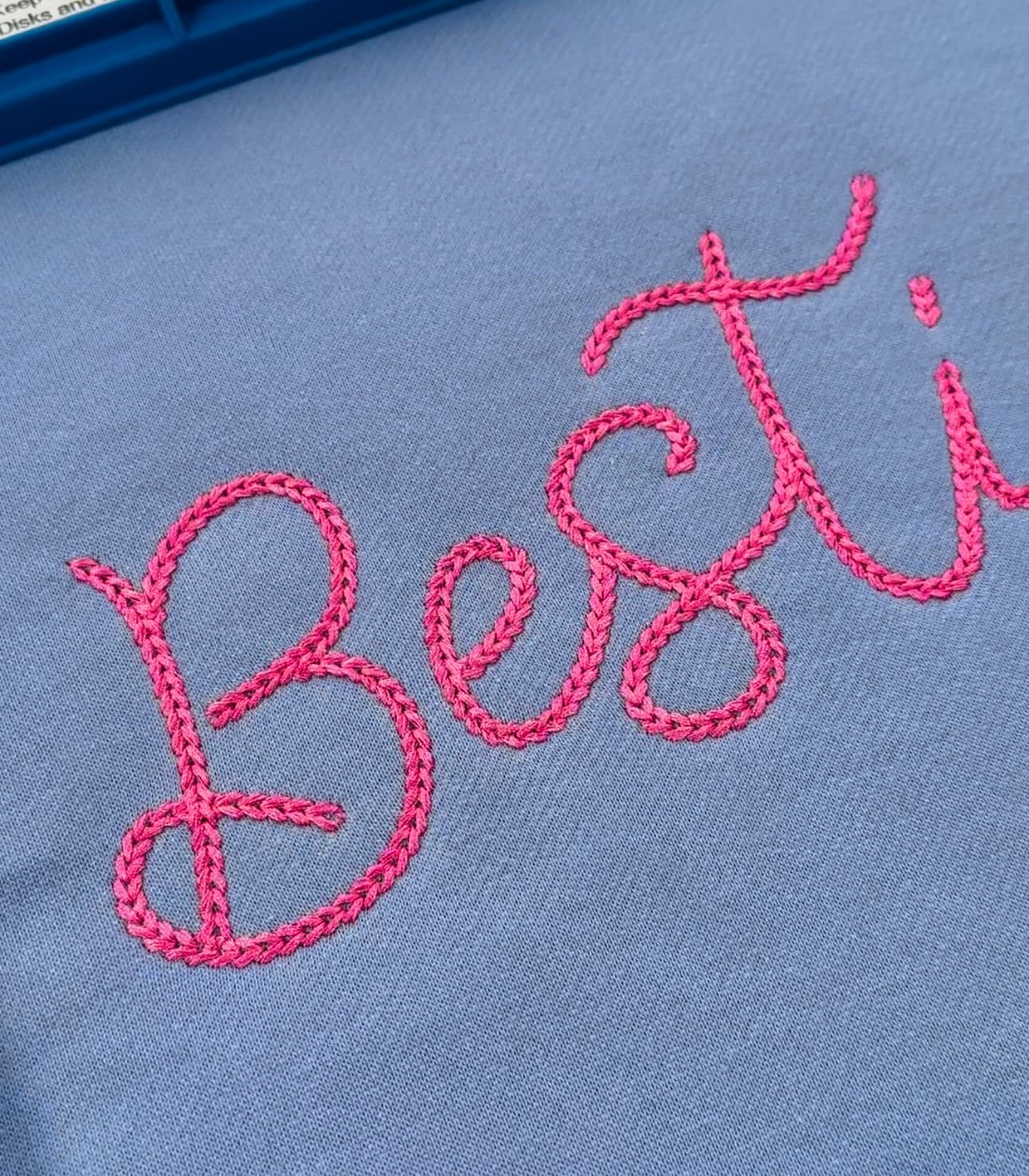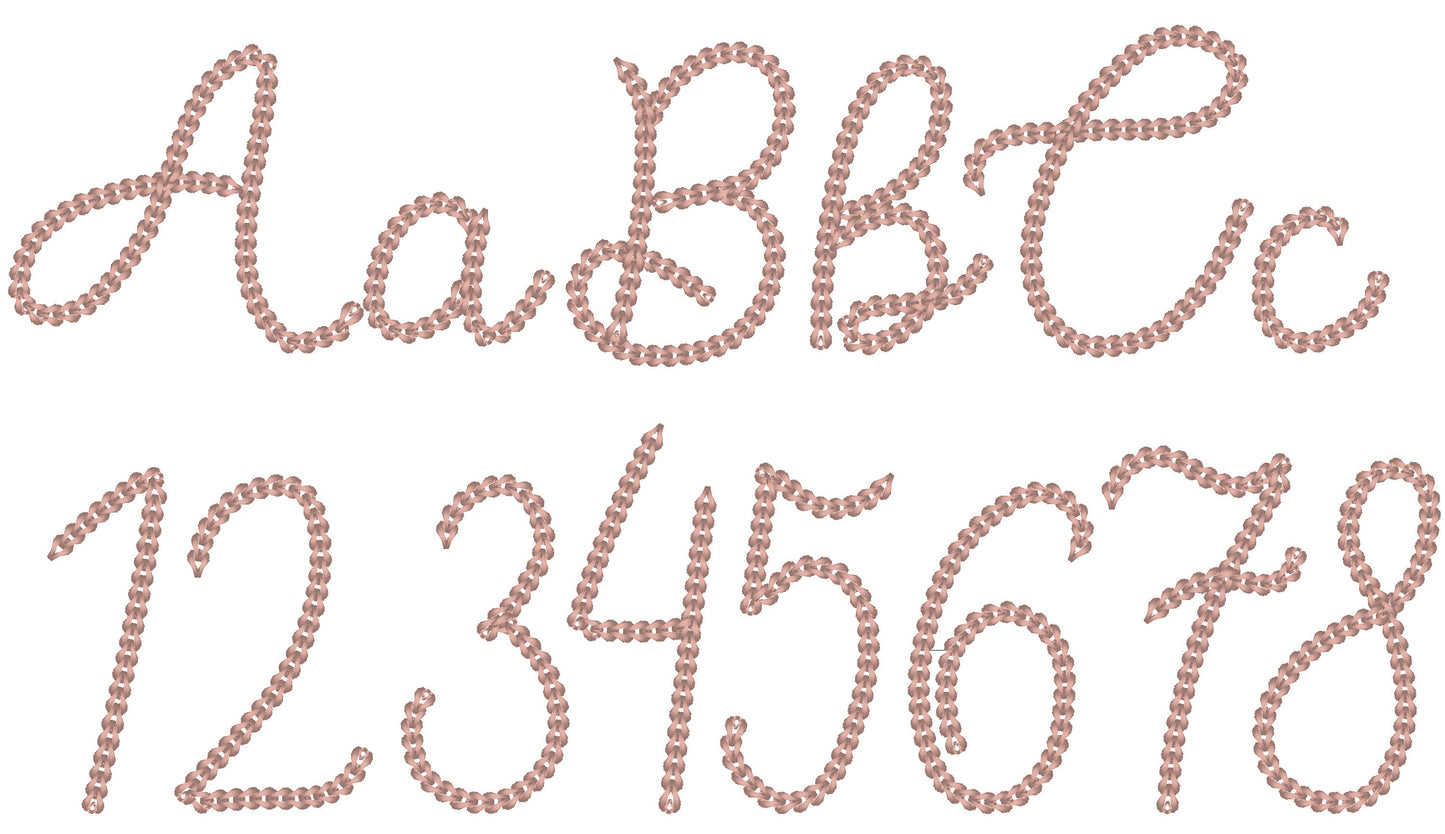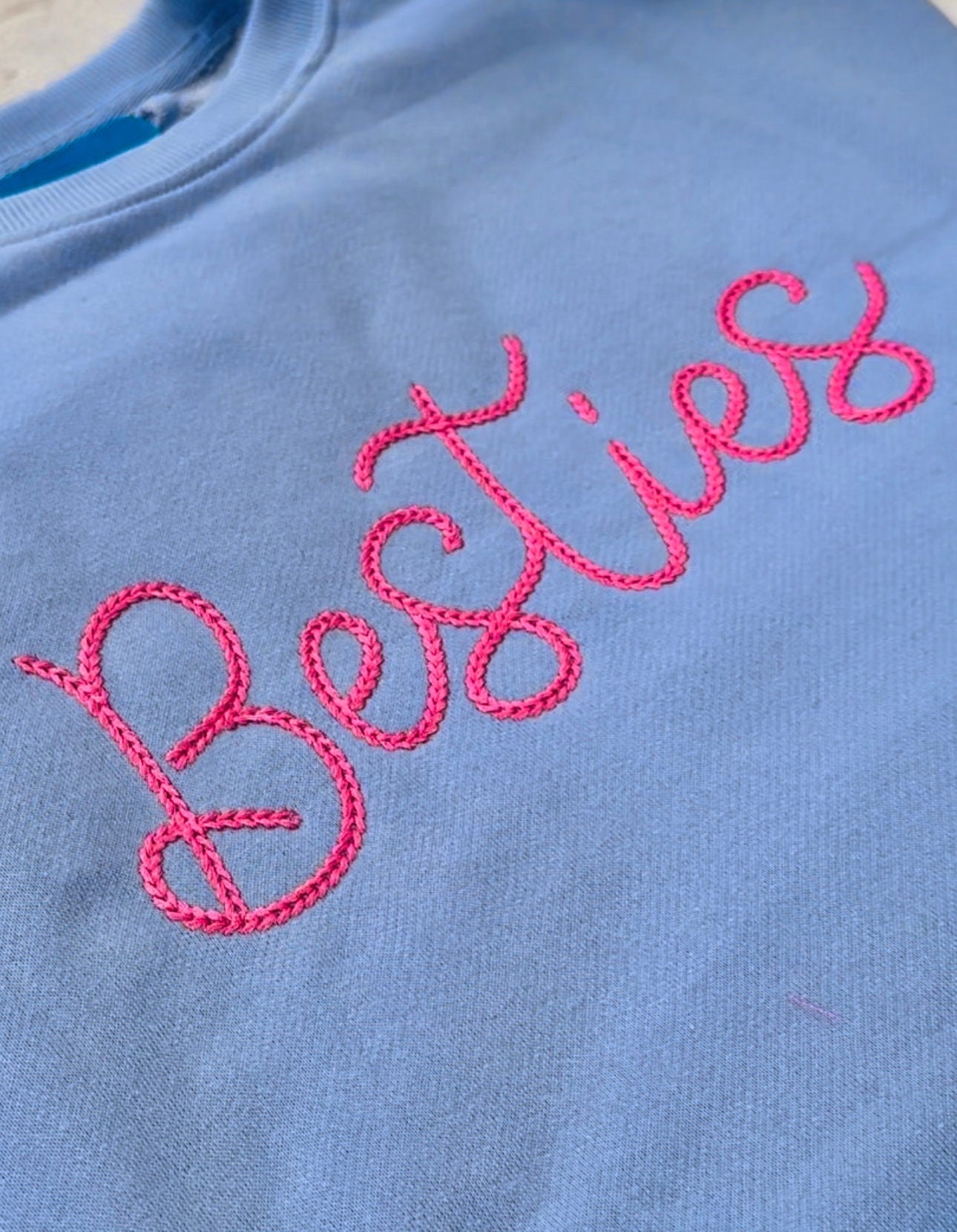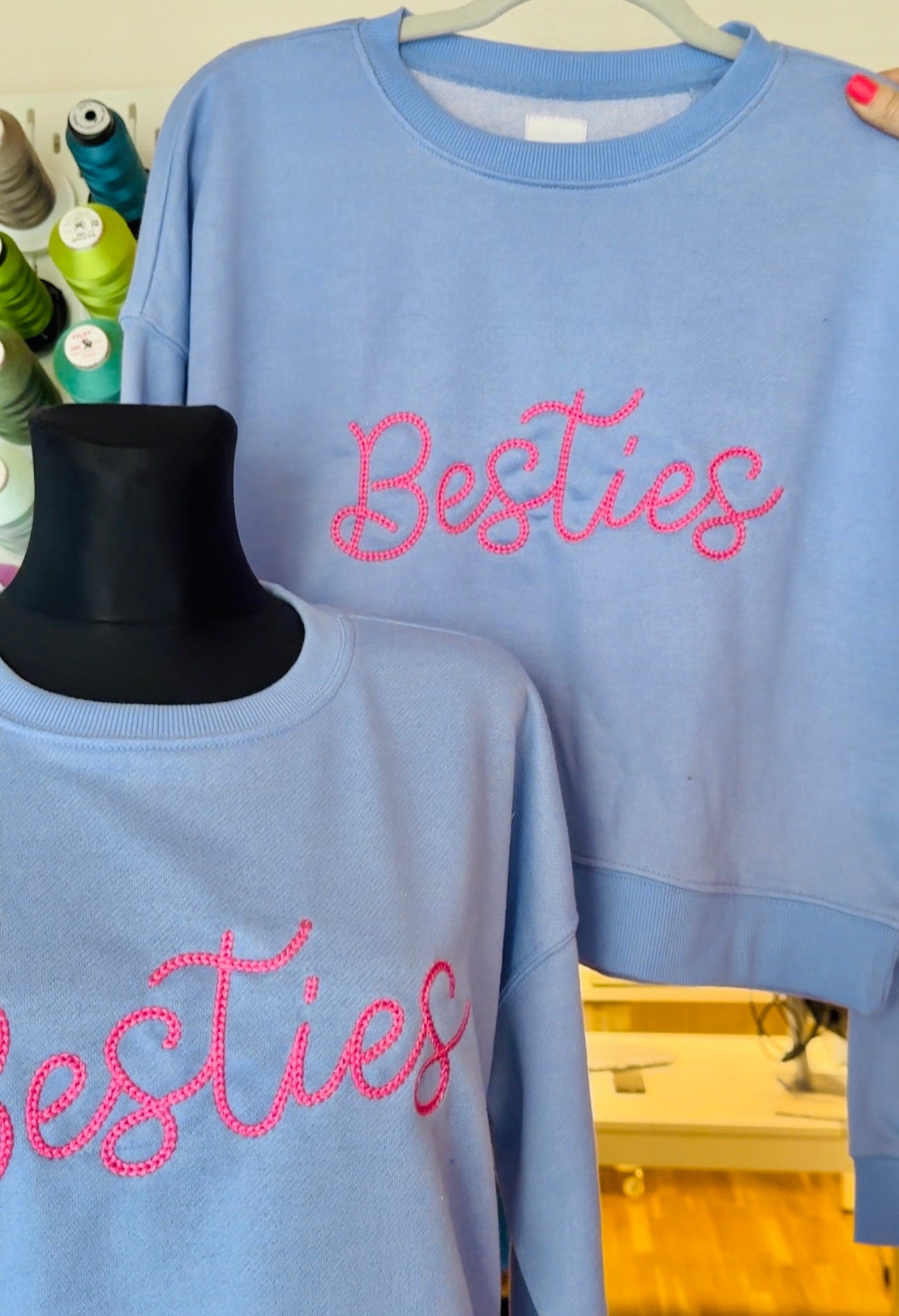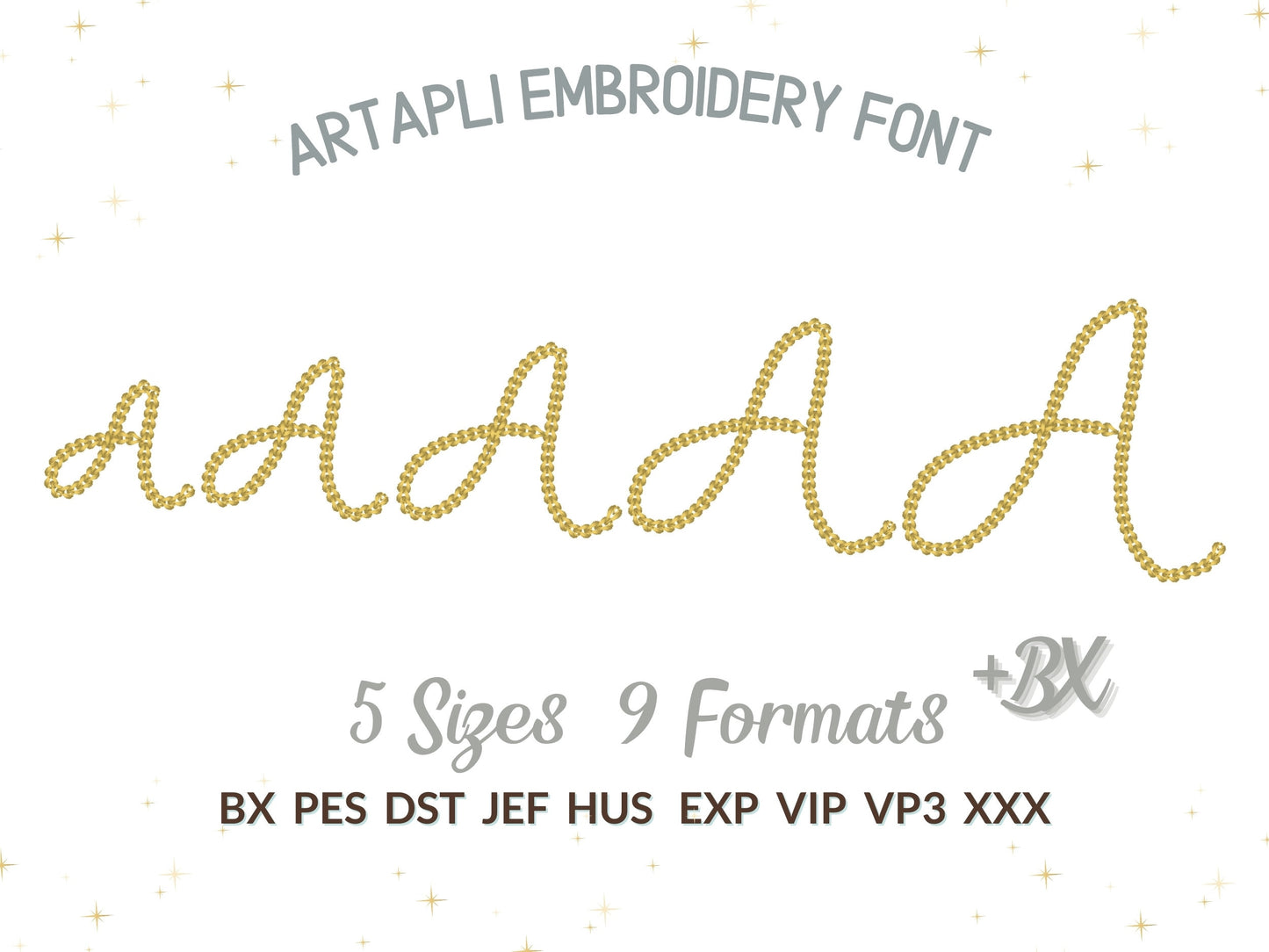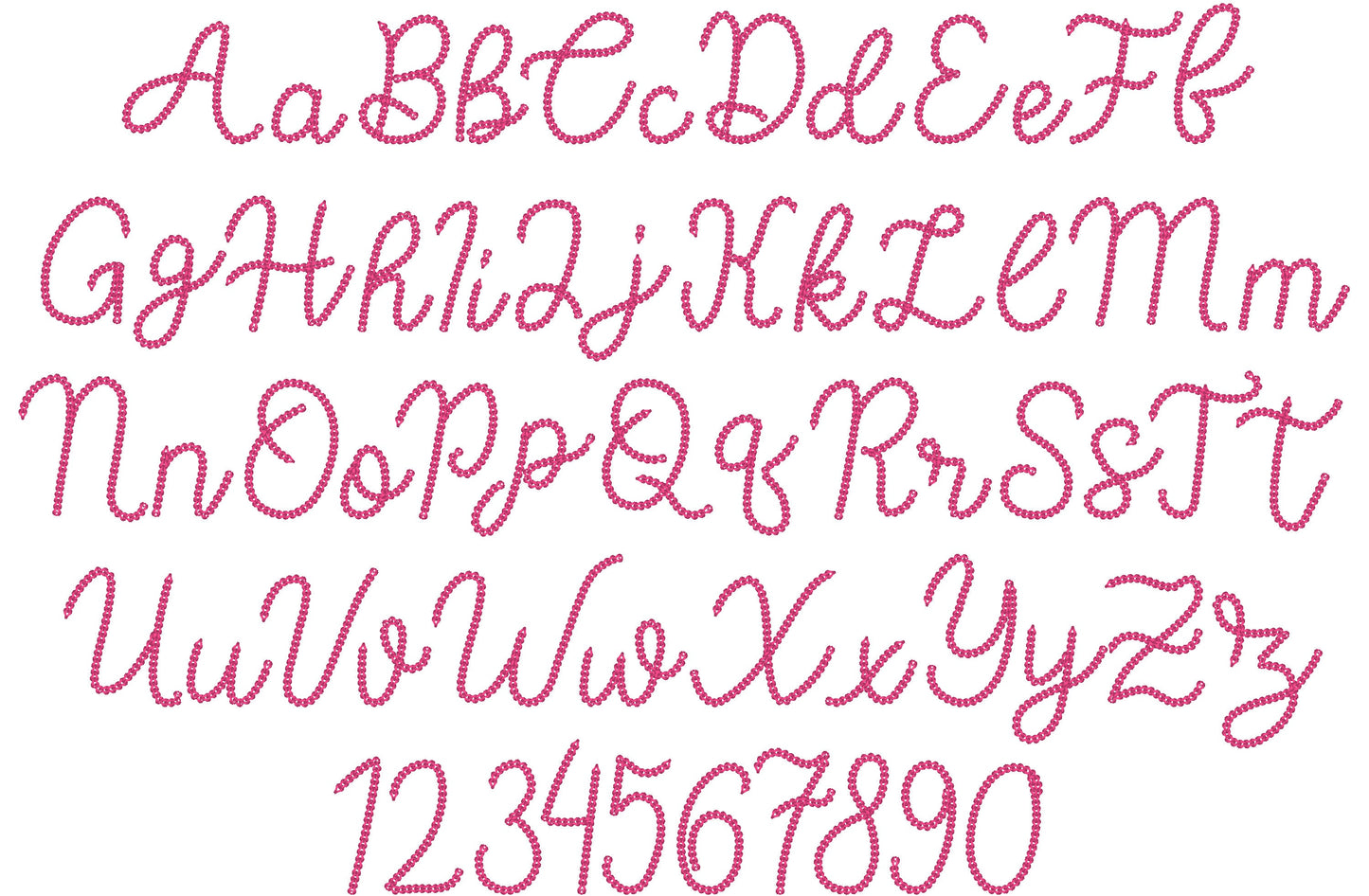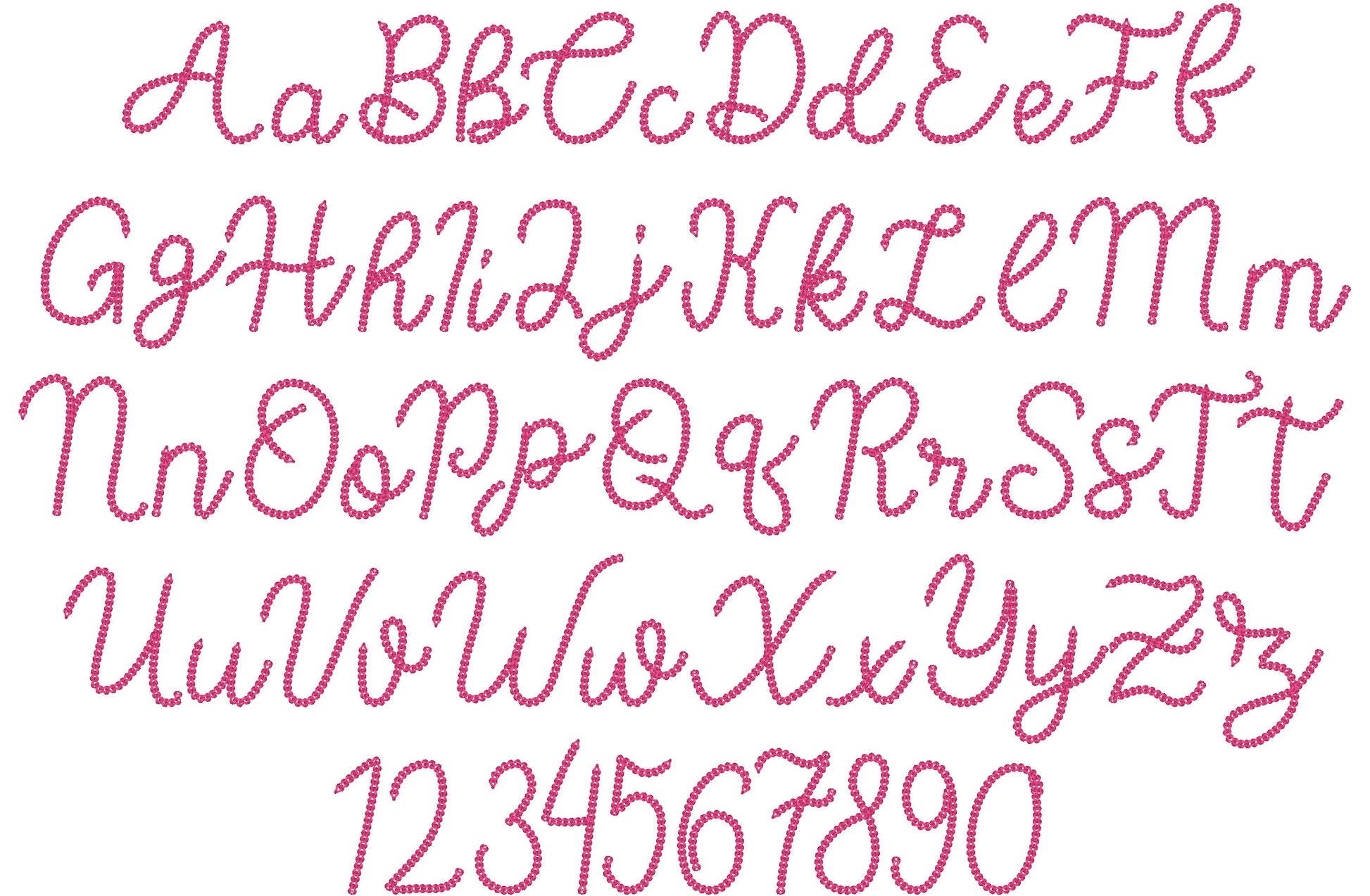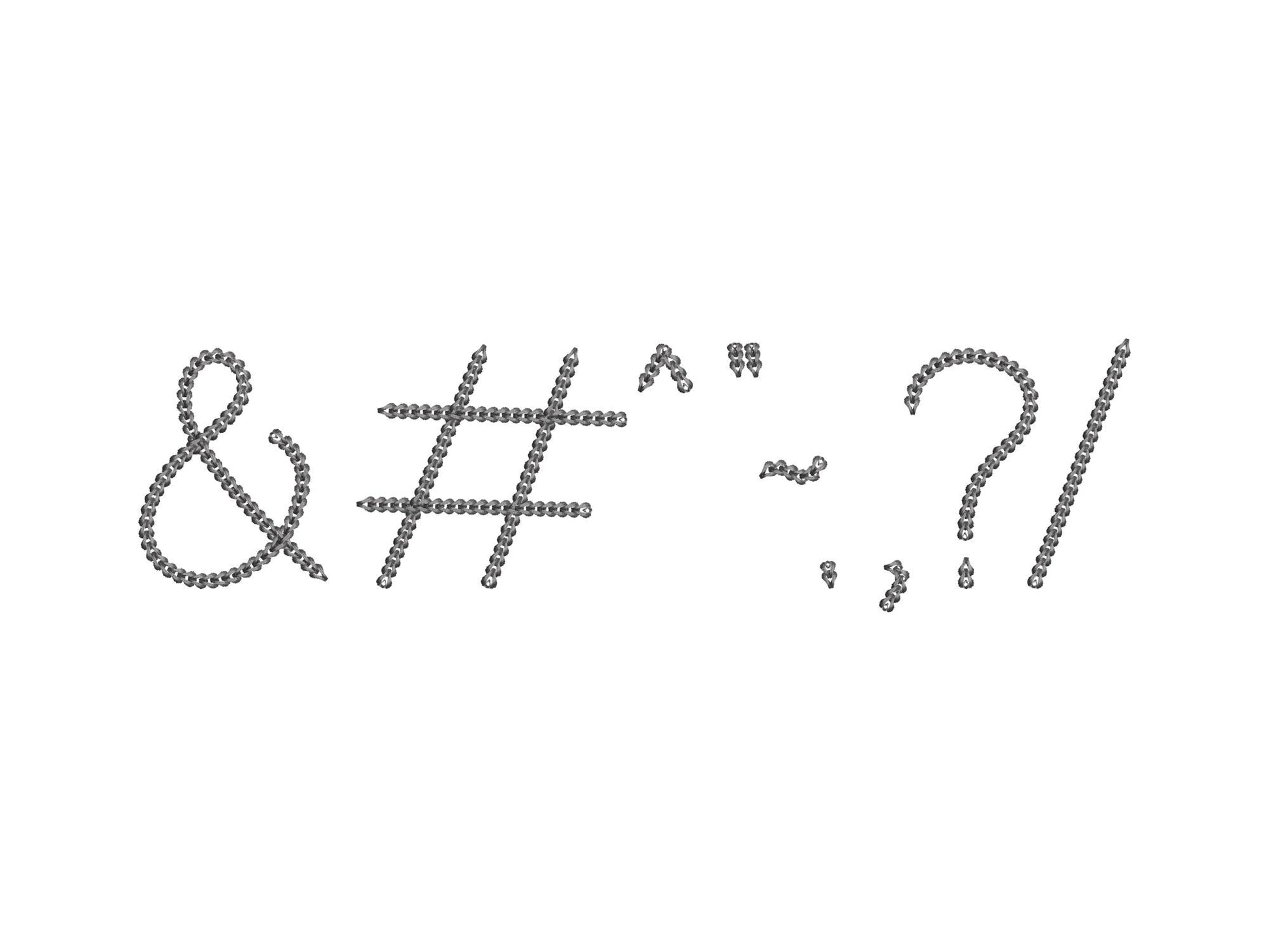
this has been stitching out so well!! it looks great on baby onesies 🩵
Stitched out perfectly. So excited to finally have a chain stitch font that is thick enough to show up on anything
as always, I find her embroidery machine fonts wonderful
Beautiful embroidery. My favourite so far Looks very elegant.
Great font, great price, stitches out beautifully and just what I was looking for.
facil de usar. queda muy bonito bordado
Super rendu, très propre , très jolie
perfect for a bandana scarf with your favorite college team.
Great design. Can't wait to use this in future projects.
It was a little tricky at first. I tried to make it a little smaller and it didn’t work. There are a lot of stitches and it’s too much to edit the size smaller so I would recommend to use it the size they come. Other than that it’s, great. Thanks so much!
This is the BEST FONT!!!!! It is SO cool!!!!!
Wonderful, made a custom tee the same day 👍🏼
The stitching turned out Amazing!
Such a cute design stitched out on a t-shirt!
Stitched out beautifully, would recommend!
Wow! this was perfect. I loved it!
I loved the stitching on my shirt
This stitched out beautifully! Looks great on sweaters
This font was been perfect for various grandmother name sweatshirts and local spirit shirts.
The font Stitched out very nicely.
Great font that stitches well
Stitched out really well, thanks
Love this font and can’t wait to use it more
Stitches out so cute! Love
Very good stitchout. I was pleased .
Amazing. Exactly what I wanted!
Beautiful! Love this font! Thank you
stitched out so cute love it
Stitched out without a issue.
Beautiful easy to use love it
tutto perfetto, molto disponibile ,grazie per avermi aiutato. font bellissimo grazie
This is a really nice font I can't wait to use it more.